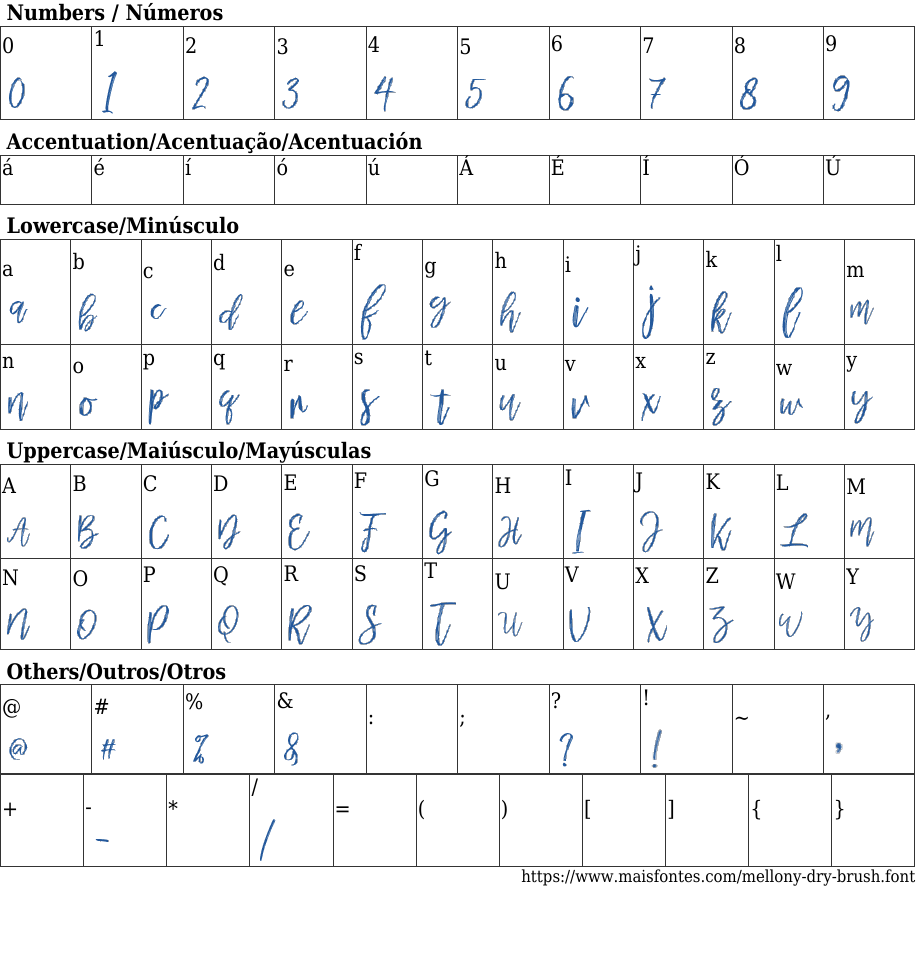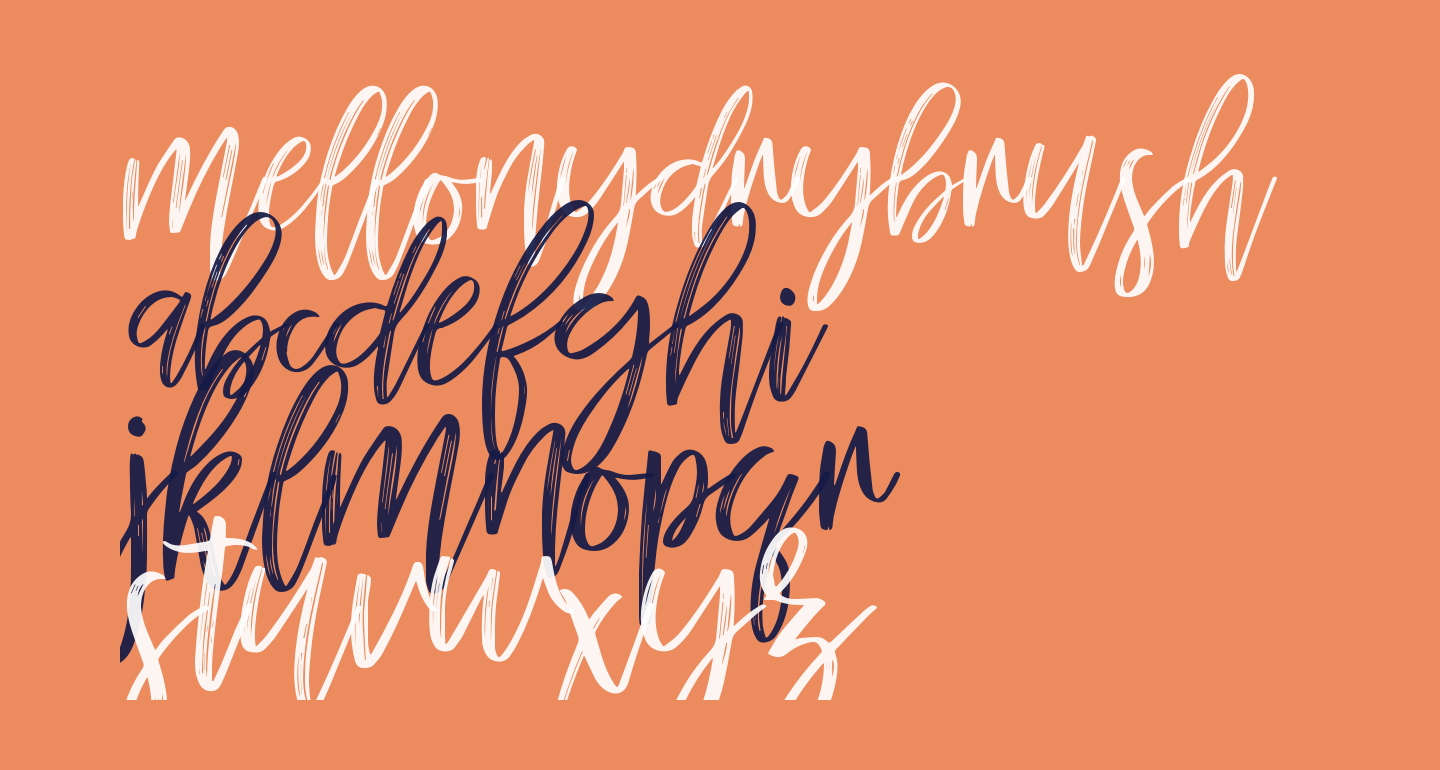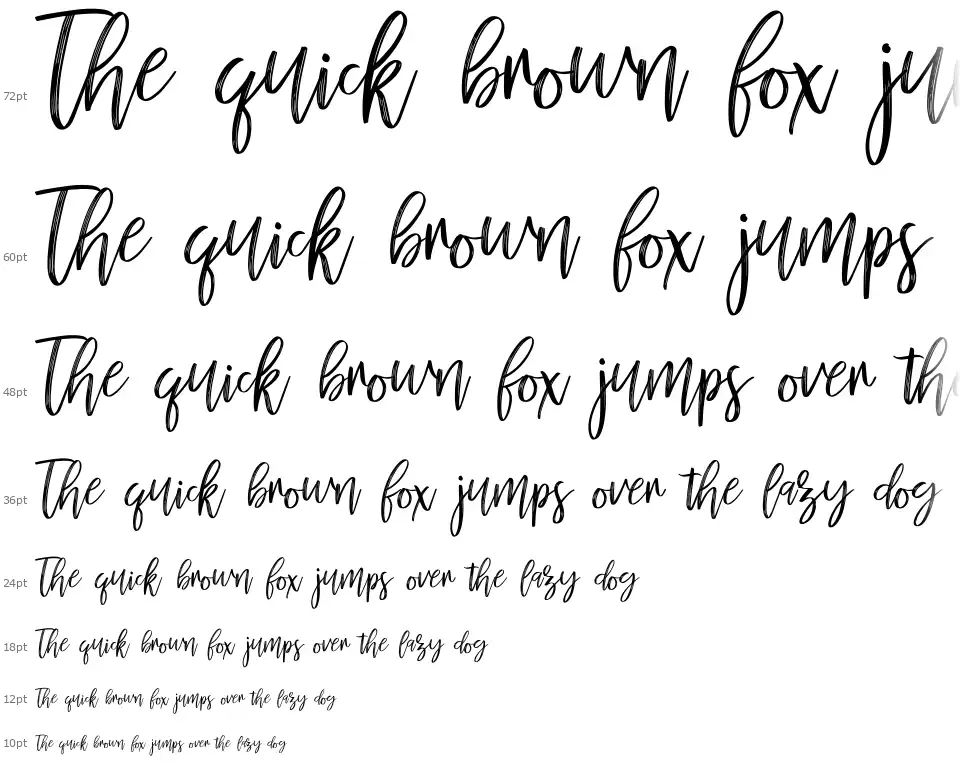
Mellony free font Mellony Dry Brush Font Download Fonts mellony dry brush font download for free, in ttf for windows and mac! Download and install the mellony dry brush font by alit design. Fonts mellony dry brush in fancy category. The handwriting of this font emits. ️ this font has been downloaded 700+ times. File script name mellony dry brush.otf download free for personal use. Please review any. Mellony Dry Brush Font Download.
Mellony Brush Script Font Design Cuts Mellony Dry Brush Font Download and install the mellony dry brush font by alit design. Mellony dry brush regular font by alit design. Download mellony dry brush font from free cdn or use it on your website as webfont. Download and install the mellonydrybrush font for free from ffonts.net. The handwriting of this font emits. ️ this font has been downloaded 700+ times. The. Mellony Dry Brush Font Download.
mellony dry brush Font Download Free for Desktop & font Mellony Dry Brush Font Download ️ this font has been downloaded 700+ times. Fonts mellony dry brush in fancy category. Fonts mellony dry brush font download for free, in ttf for windows and mac! Download mellony dry brush font from free cdn or use it on your website as webfont. File script name mellony dry brush.otf download free for personal use. Mellony dry brush regular. Mellony Dry Brush Font Download.